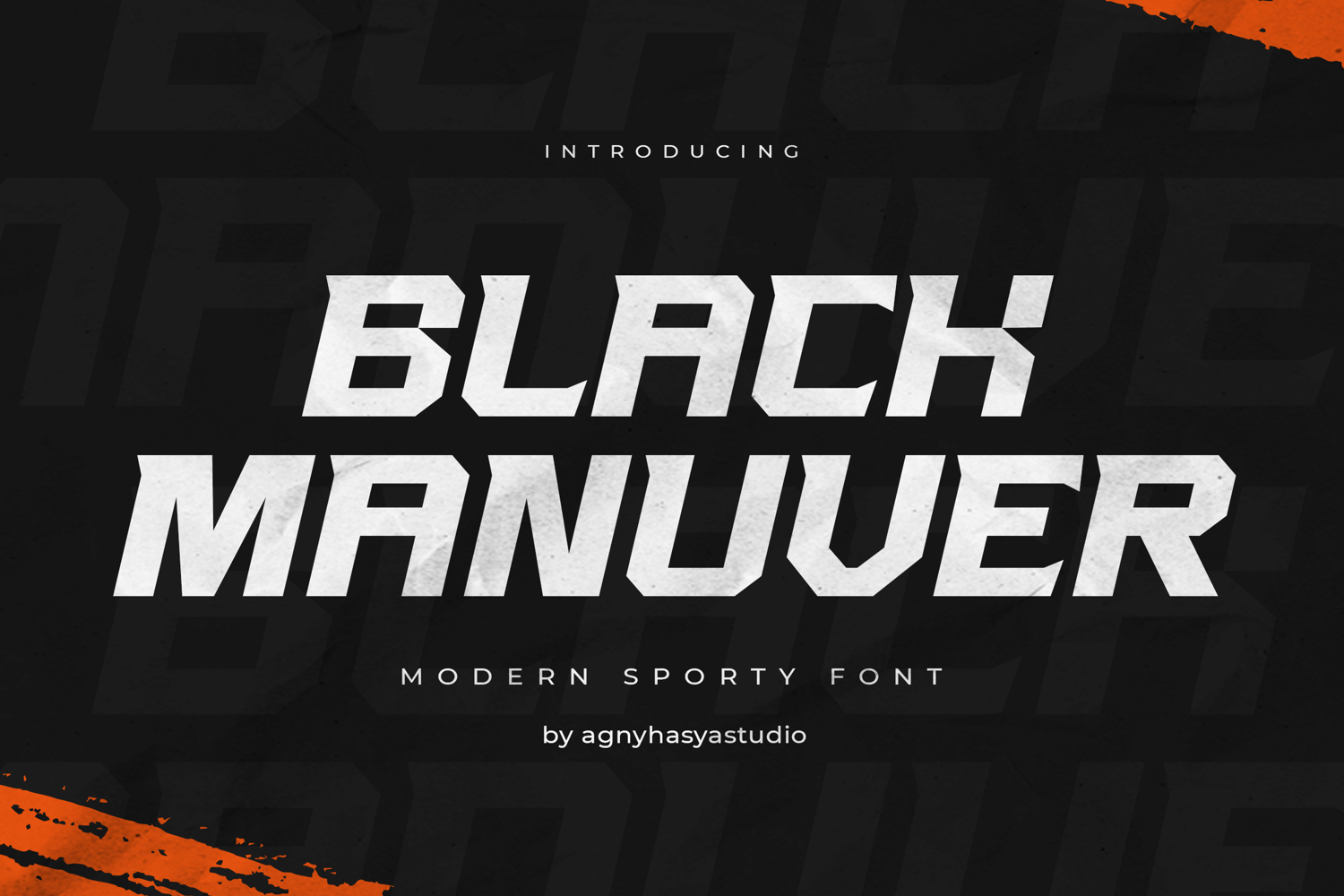
Black Manuver
Introducing Black Manuver - a dynamic, bold display typeface that embraces the spirit of modernity. is created with 2 (two) styles (regular & italic).
It captures the energy of sports and the excitement of racing, and it spectacularly bridges the gap between action and style.
With stately geometric and street-side charm, Black Manuver is uniquely crafted to encapsulate the thrill of gaming and the boldness of athletic themes.
A true game changer in the realm of contemporary typefaces!